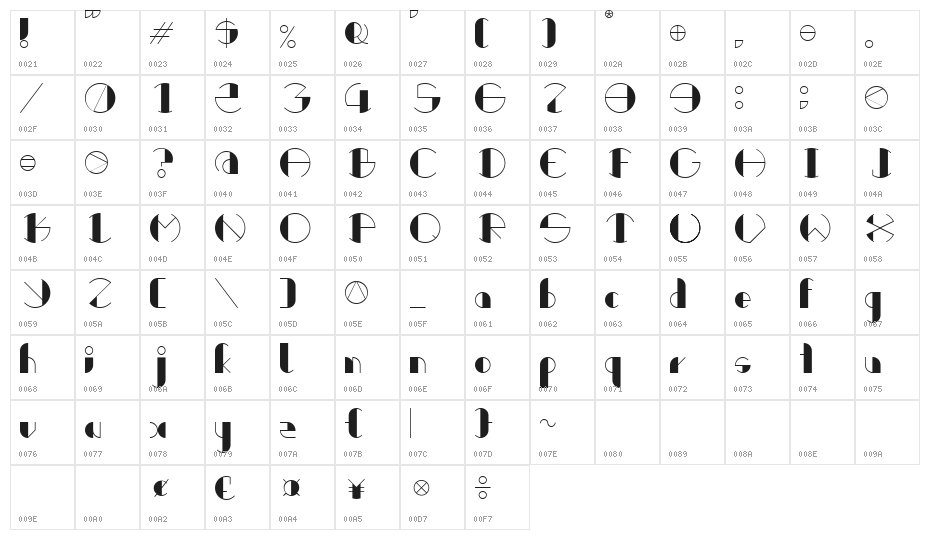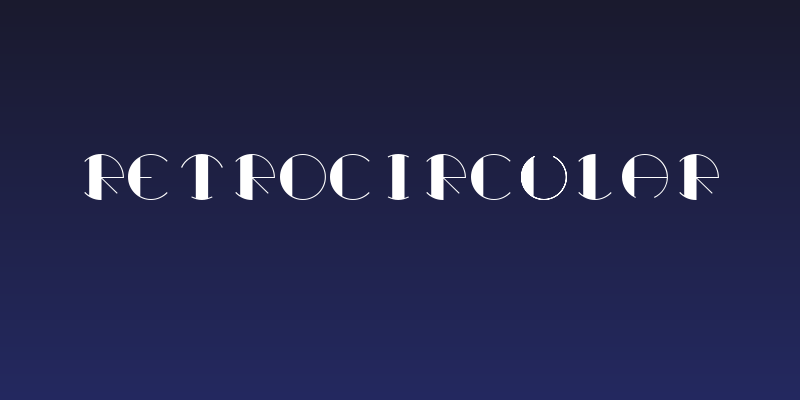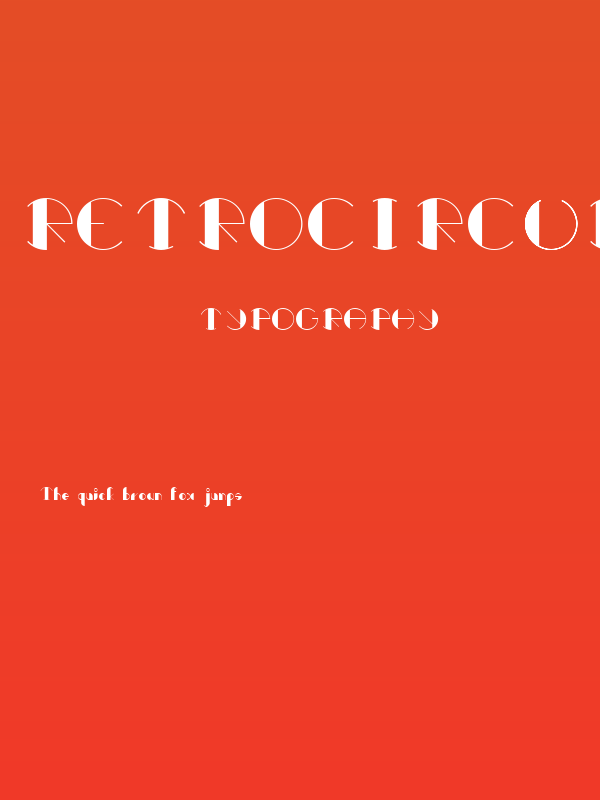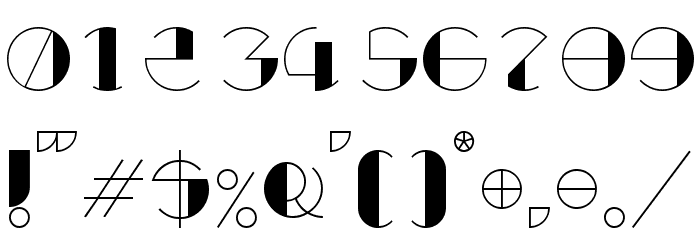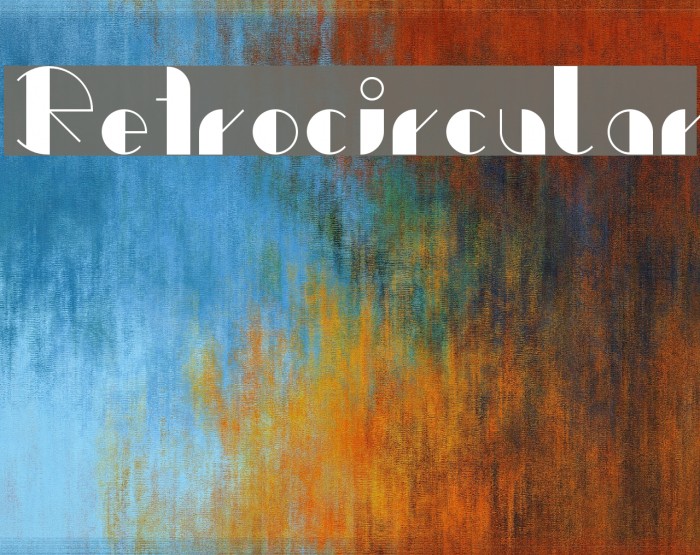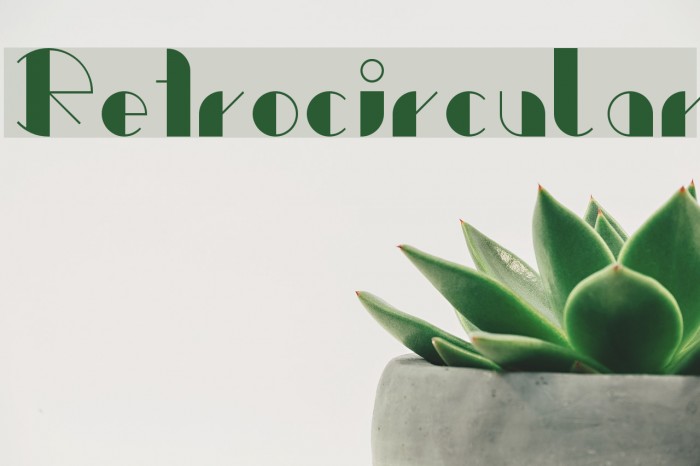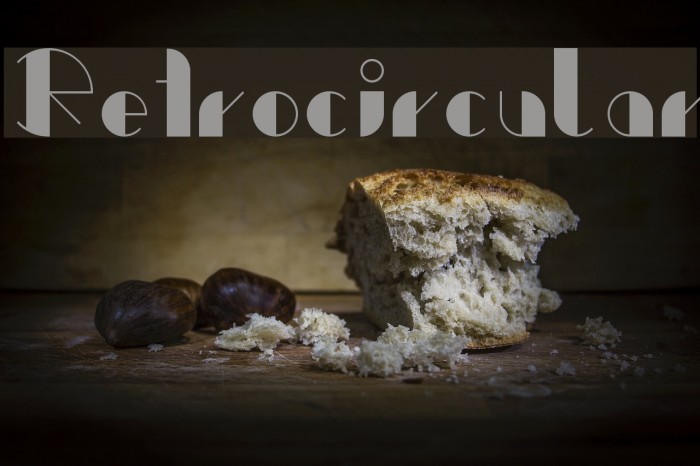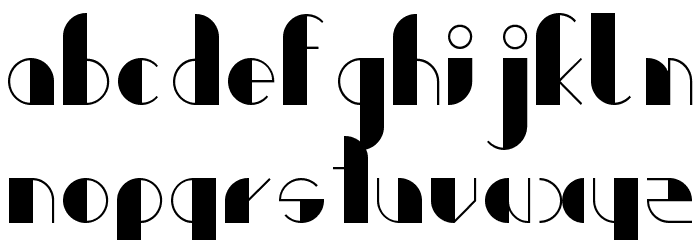
Retrocircular Font
Retrocircular Description
This font features a unique blend of geometric shapes and bold strokes, creating a striking and modern appearance. The characters are composed of circular and semi-circular elements, giving them a futuristic and abstract look. The uppercase letters are particularly distinctive, with their symmetrical and angular designs. The lowercase letters maintain a consistent style, with smooth curves and sharp edges. Numbers and special characters follow the same design principles, ensuring a cohesive overall appearance. This font is ideal for projects that require a bold and eye-catching typeface.